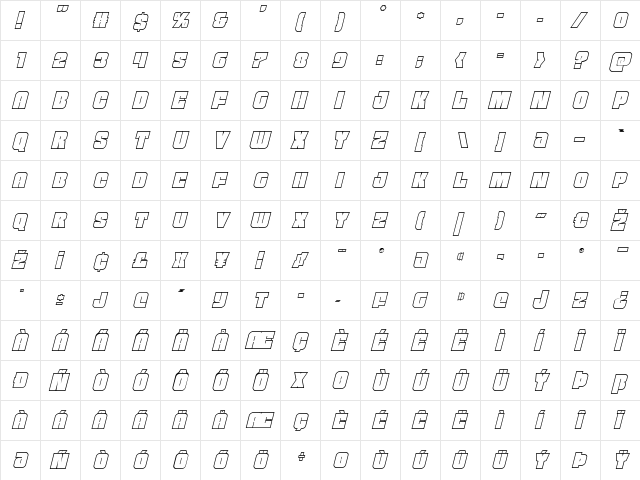
Funk Machine Outline Italic Italic
Design Context for Funk Machine Outline Italic Typeface
Funk Machine Outline Italic trades formality for fun, with bouncy, characterful letterforms that bring warmth and energy to any project. The dynamic lean of this cut emphasises speed and emphasis in any layout.
Font Pairing: Pairs well with a rounded or humanist sans for body copy, maintaining the friendly tone without relying on Funk Machine Outline Italic to carry extended reading.
Pro Tip: Avoid using Funk Machine Outline Italic for long passages of text — it works best for headlines, labels, and short calls to action.